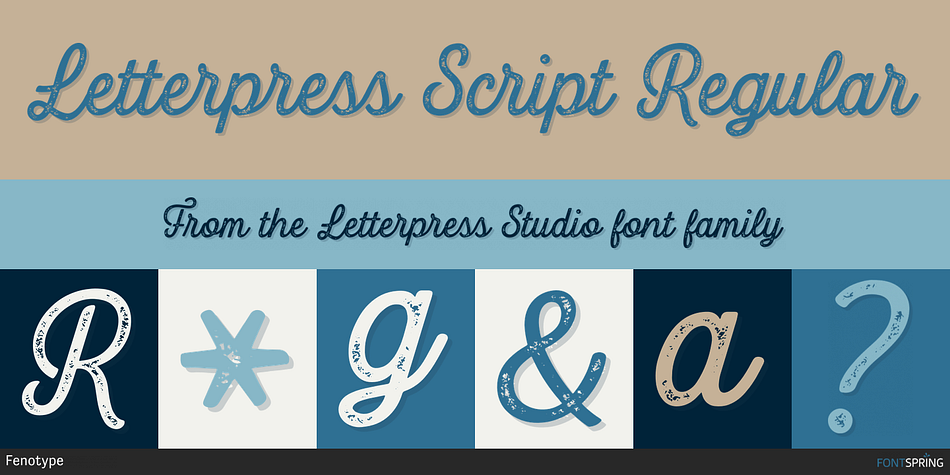
Letterpress Script Regular
Designed by Emil Karl Bertell, Letterpress Studio is a multiple classification font family. This typeface has eighteen styles and was published by Fenotype.
Letterpress Studio -Crafted Vintage Goods
Letterpress Studio includes following
• 7 fonts - a textured and clean version of each
• Ornaments
• Catchwords
• 25 Logo Templates
Letterpress Studios core is seven fonts - textured and clean version of each. Fonts are designed in same proportions and work great together. Here’s a short introduction to the fonts:
• Letterpress Script -A connected script with lot’s of OpenType features
• Letterpress Script Bold -Bold version of Letterpress Script
• Letterpress Condensed -A condensed sans-serif typeface with swash uppercase characters on
• Letterpress Gothic -A sans-serif typeface with swash uppercase characters
• Letterpress Sans -An extended sans-serif typeface with swash uppercase characters
• Letterpress Wood -A woodcut style serif typeface with swash uppercase characters
• Letterpress Black -A black woodcut style serif typeface with swash uppercase characters
• Letterpress Ornaments -A set of pictograms, ornaments, borders and badges (OTF, AI & PDF)
• Letterpress Catchwords -A set of over 100 woodcut-style catchwords (OTF, AI & PDF)